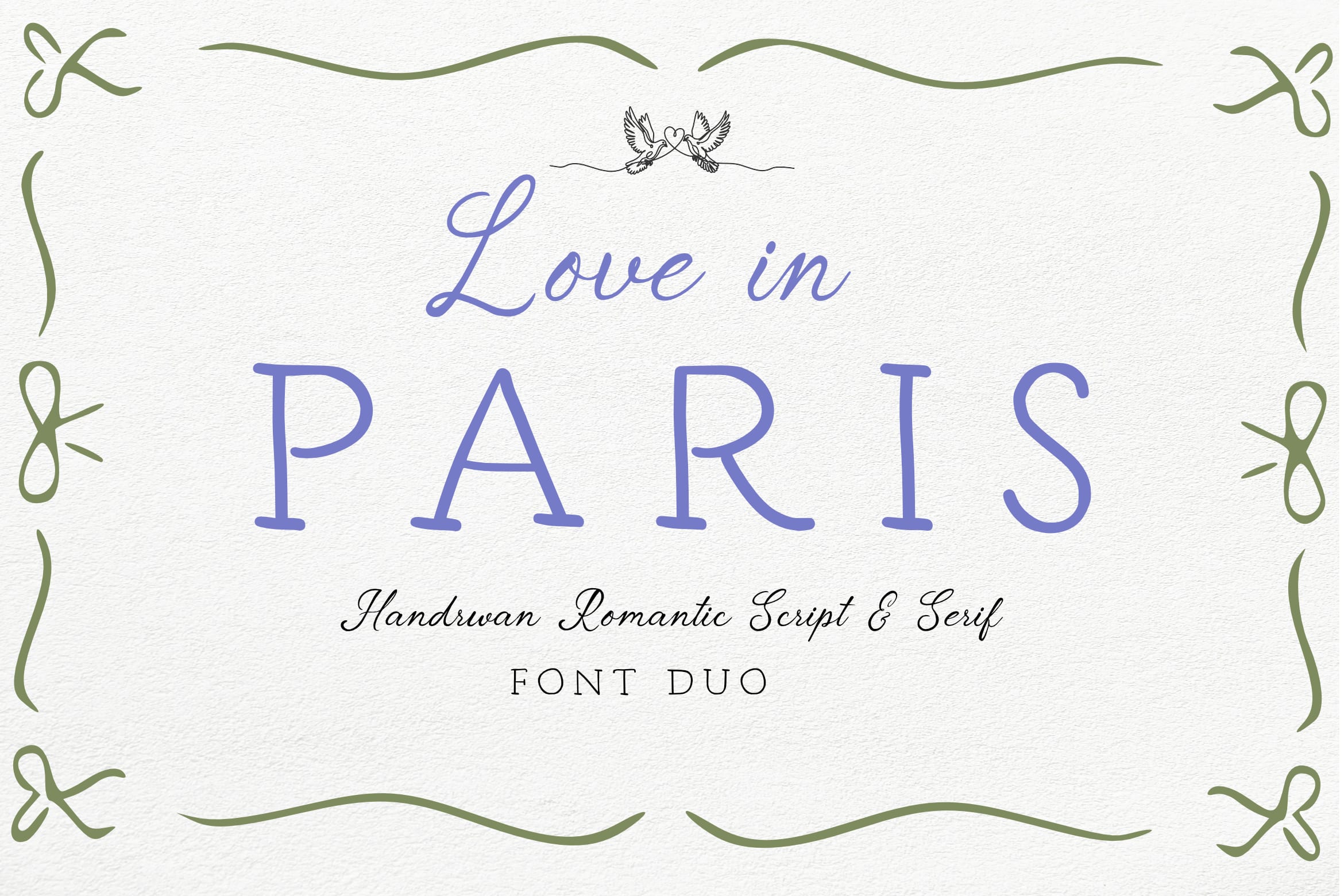
Perfect for wedding invitations, luxury branding, beauty products, fashion labels, stationery, editorial layouts, social media content, packaging, and logo design, Love in Paris gives you endless possibilities for creating refined and memorable typography. The flowing script adds warmth and personality, while the serif font provides structure and elegance, making them a perfect match for both romantic and professional designs.
Alternate Characters
Ligatures & Stylistic Features
Multilingual Support